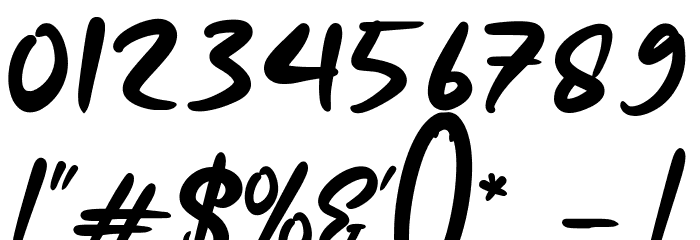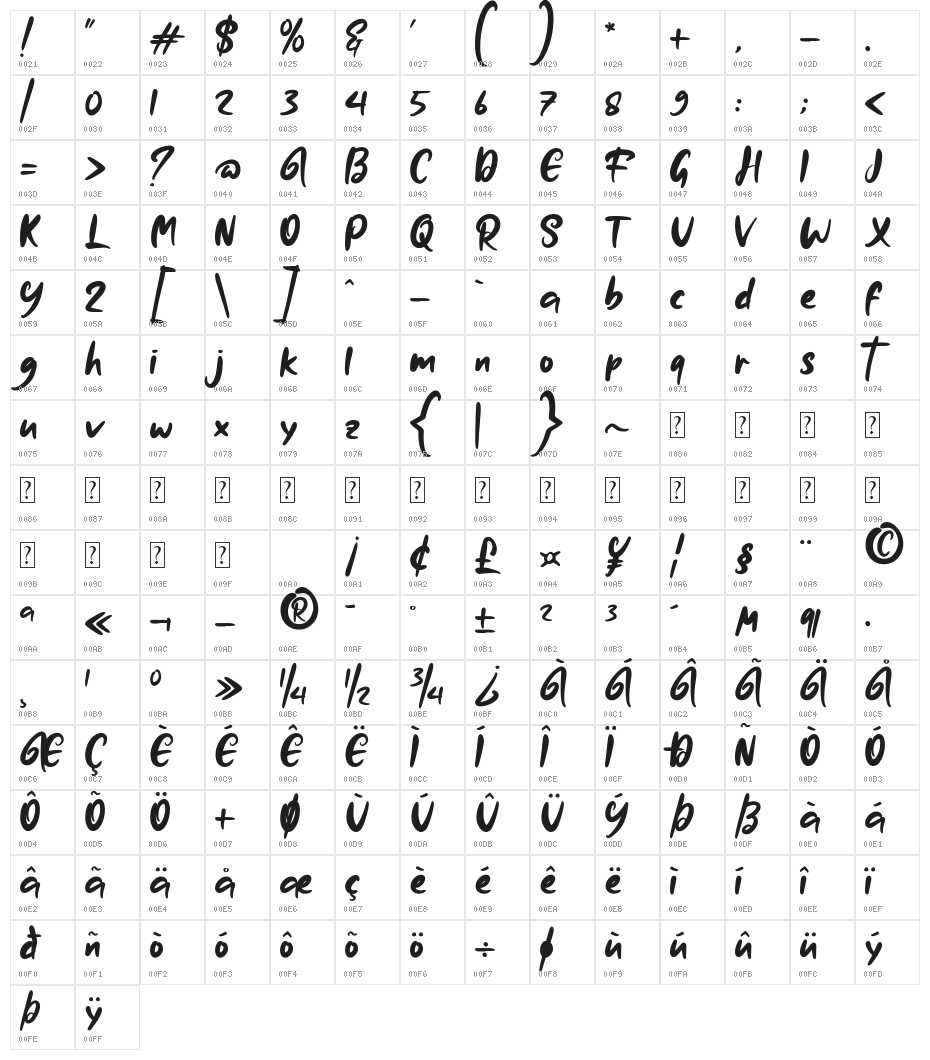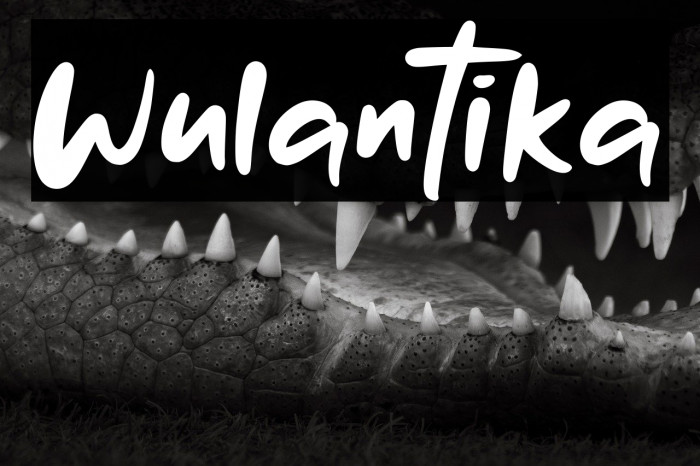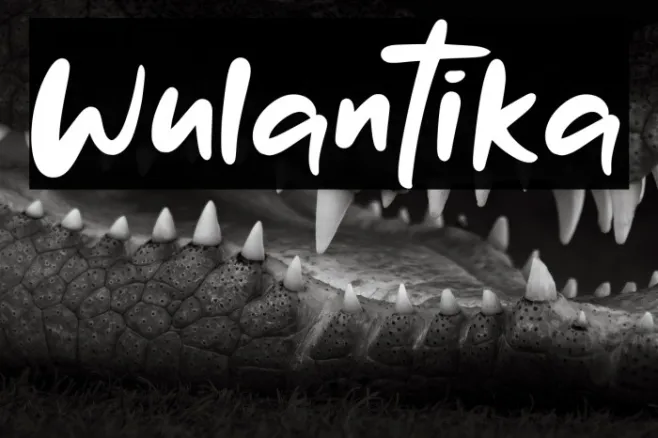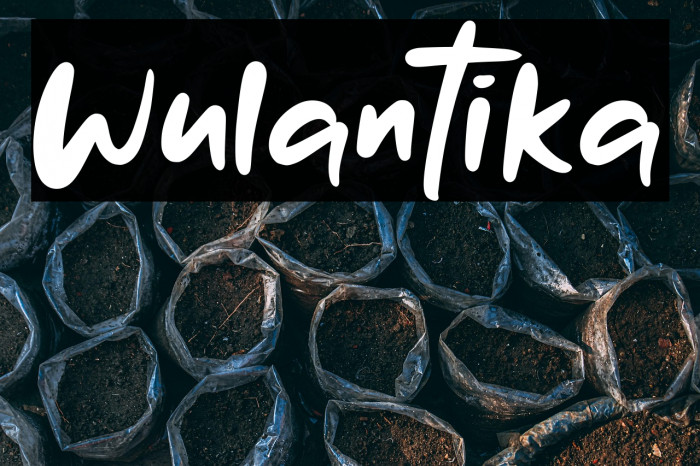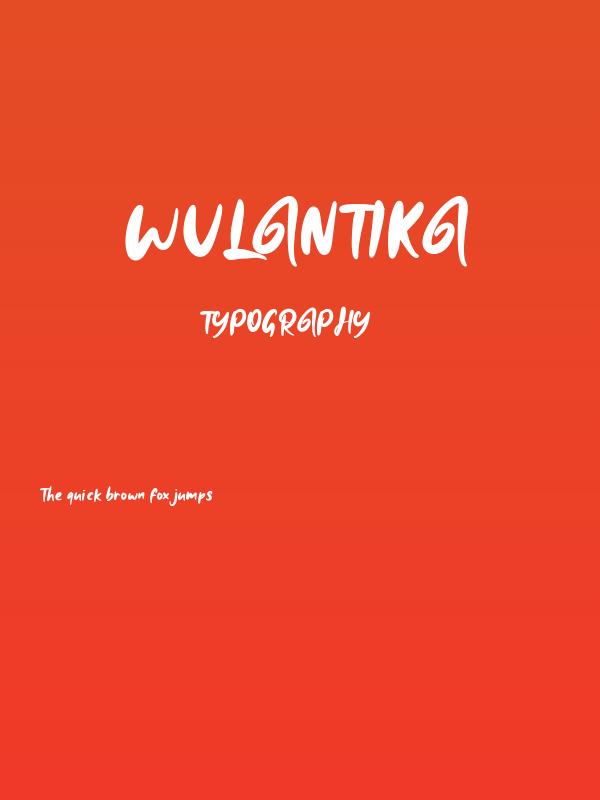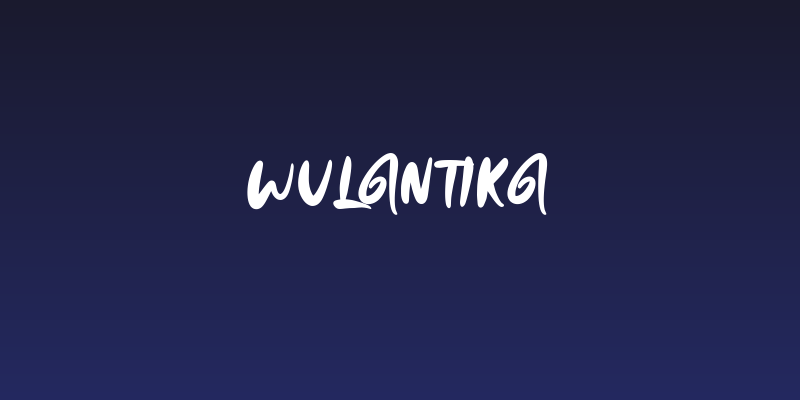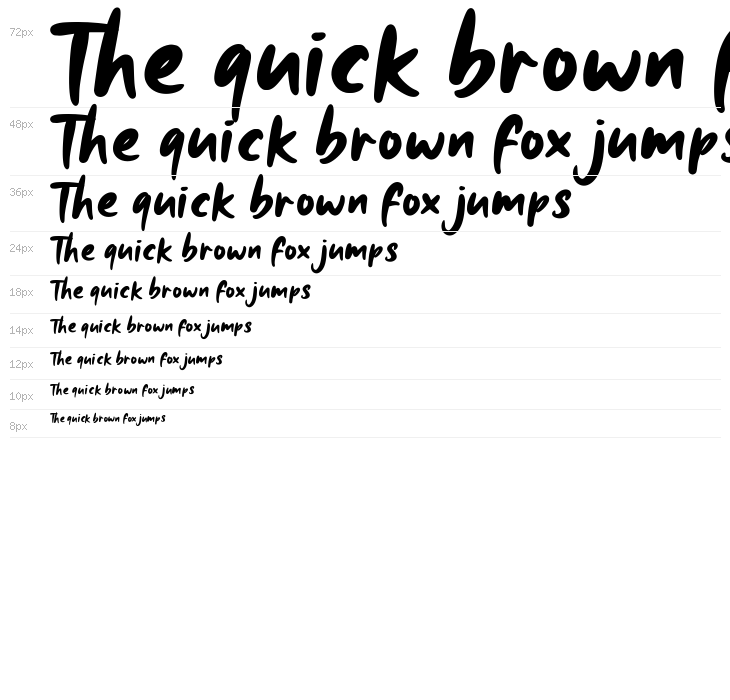
Wulantika Font
Wulantika Description
This font features a bold and dynamic handwritten style, characterized by its fluid and expressive strokes. The letters have a playful and energetic appearance, with varying thickness that adds a sense of movement and personality. The uppercase and lowercase letters are well-balanced, maintaining a consistent flow throughout. The numbers and special characters complement the alphabet with the same lively and bold design. This font's unique style makes it stand out, offering a modern twist on traditional handwritten fonts.
Proposed ProjectsIdeal for branding, logos, posters, and social media graphics where a personal and energetic touch is desired.